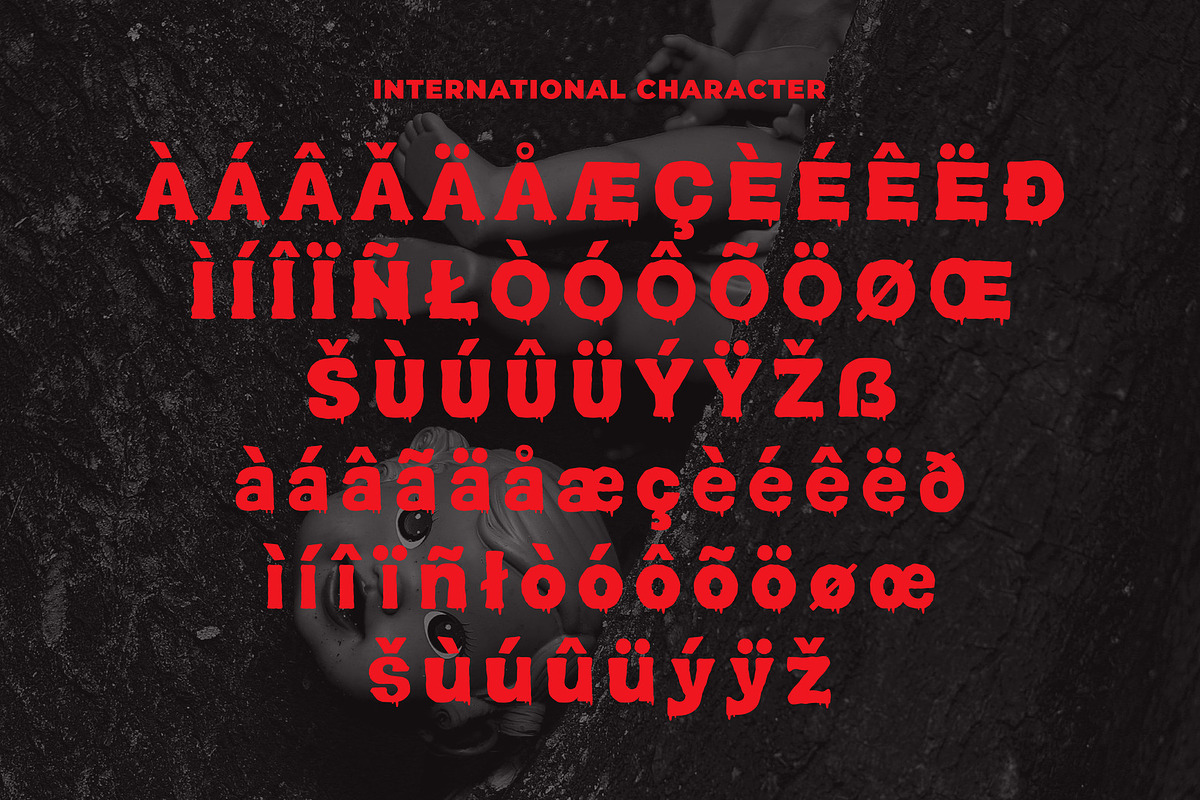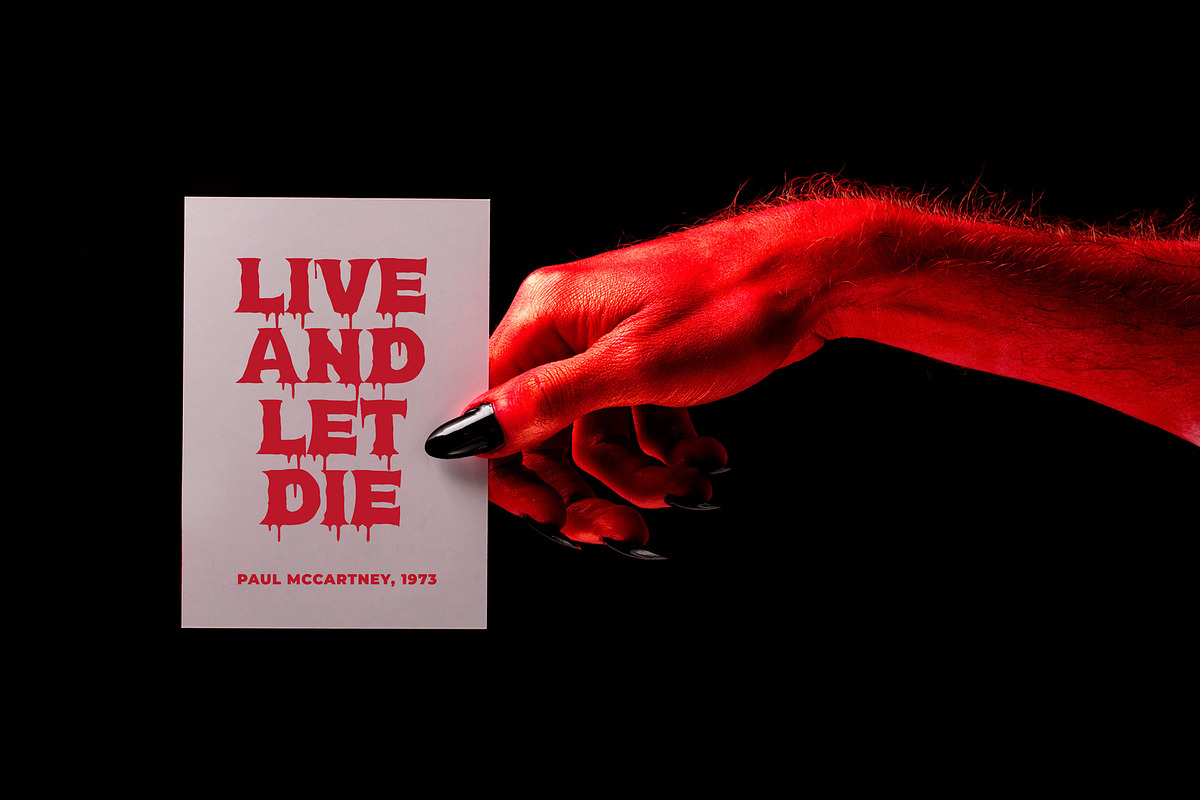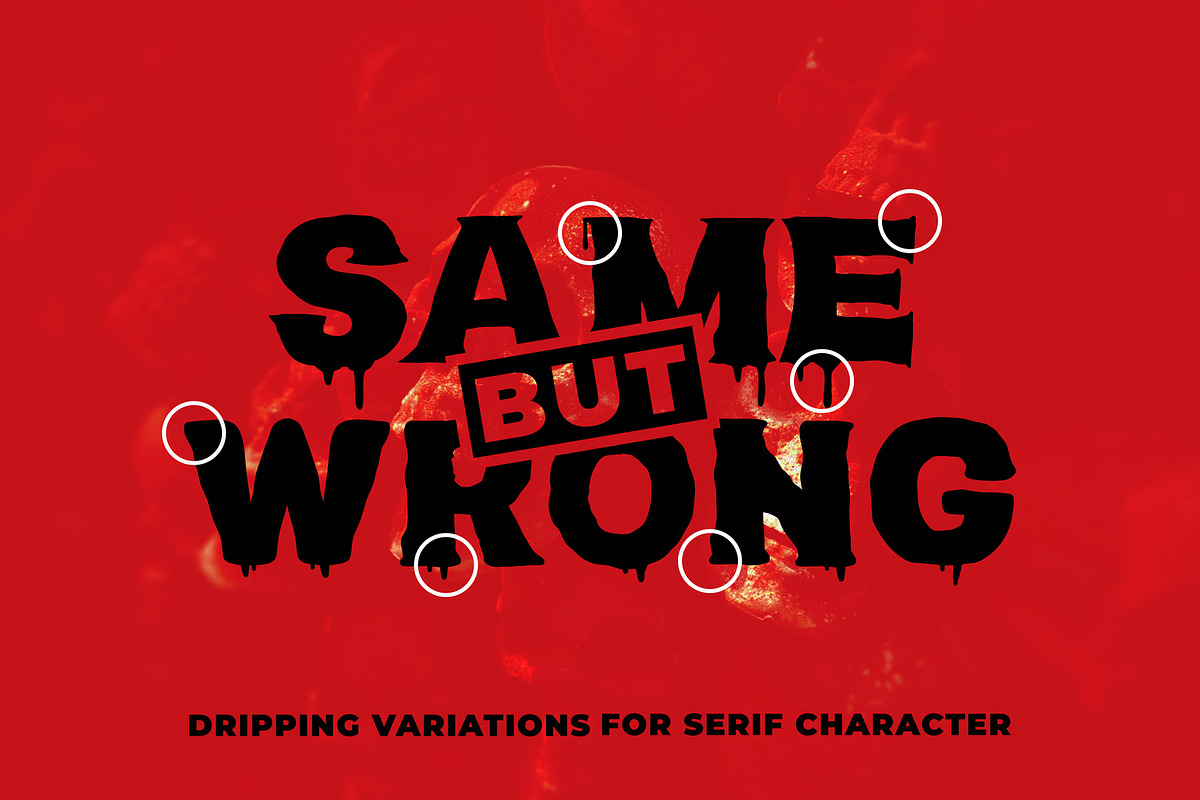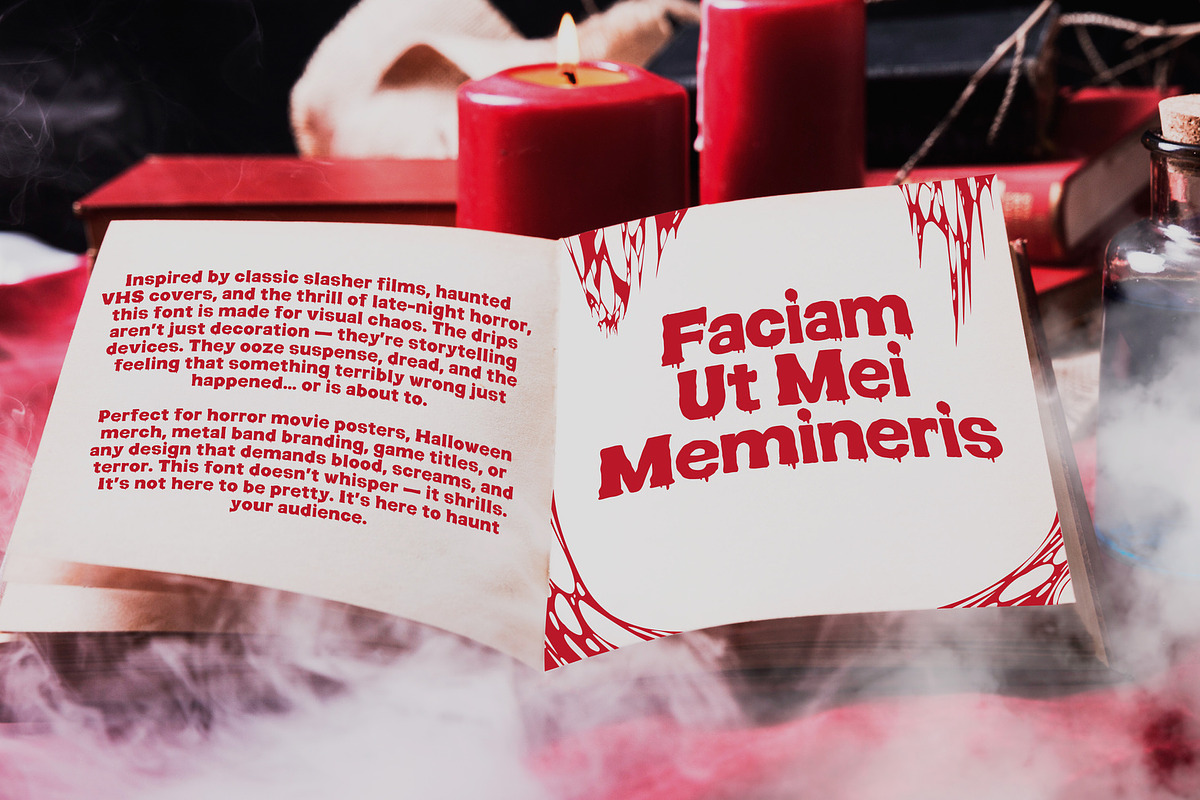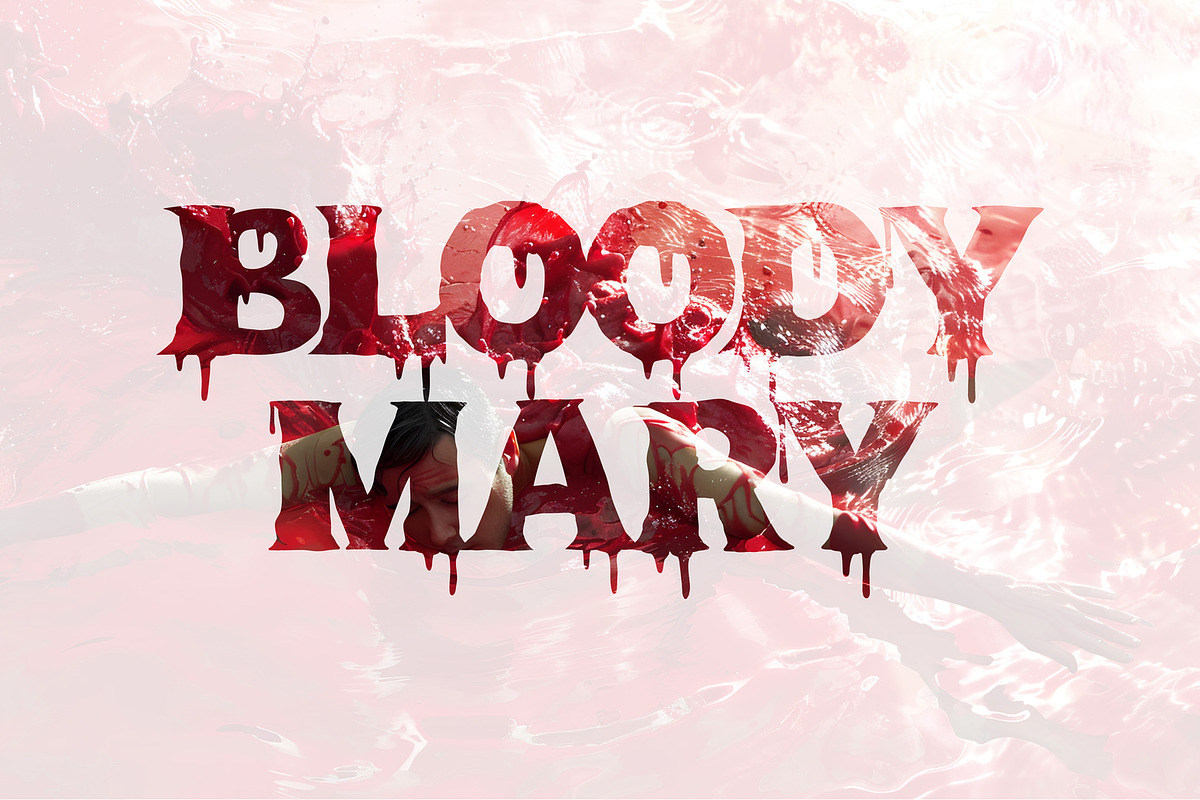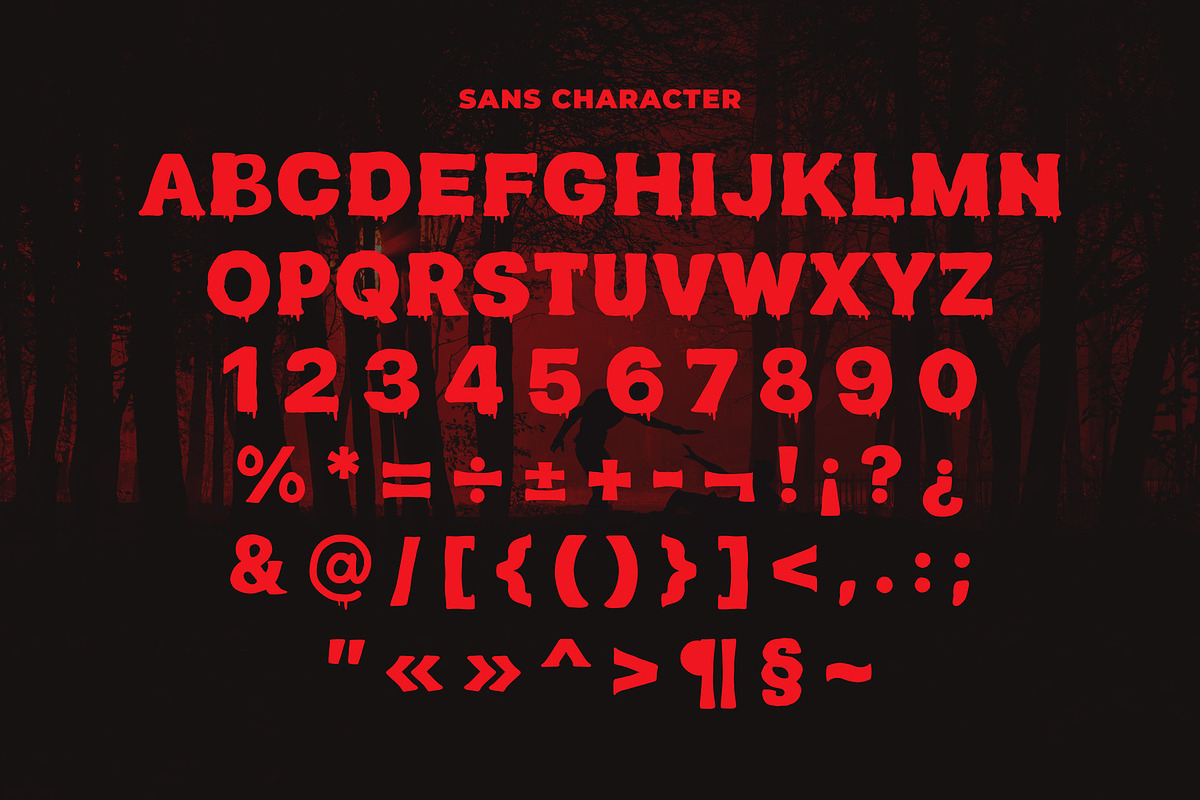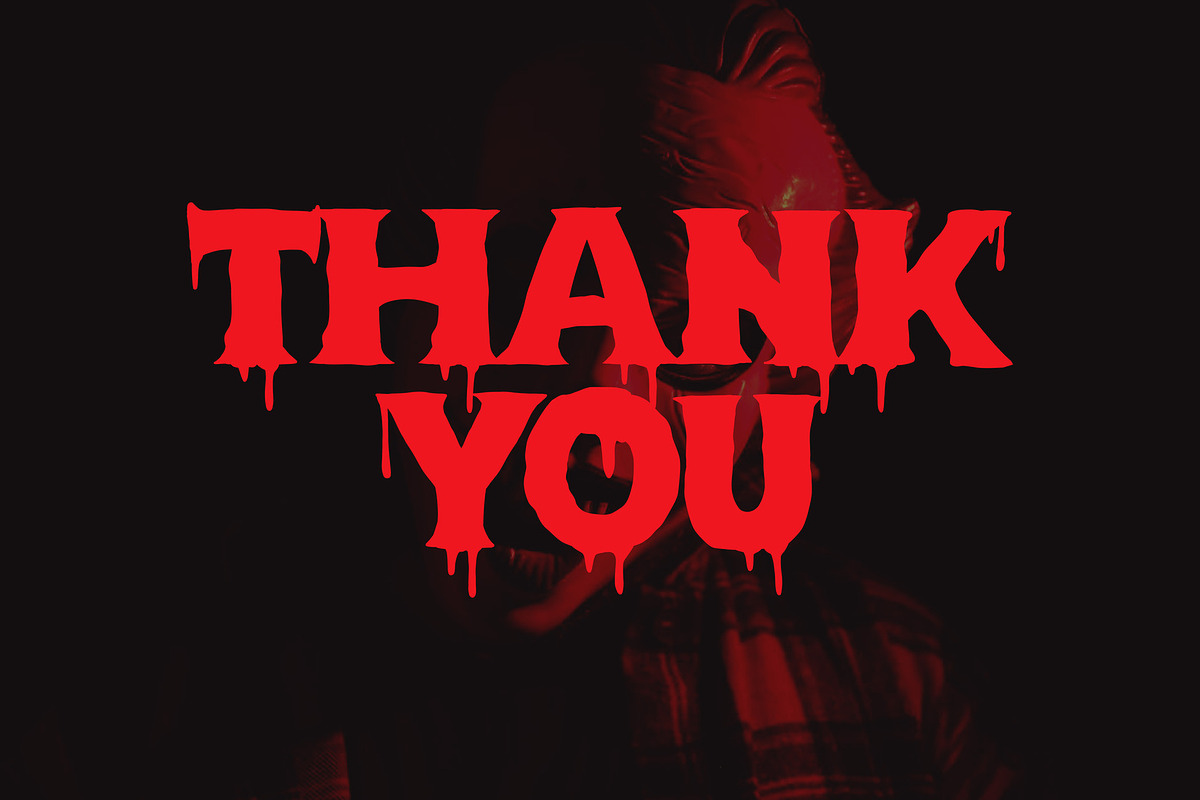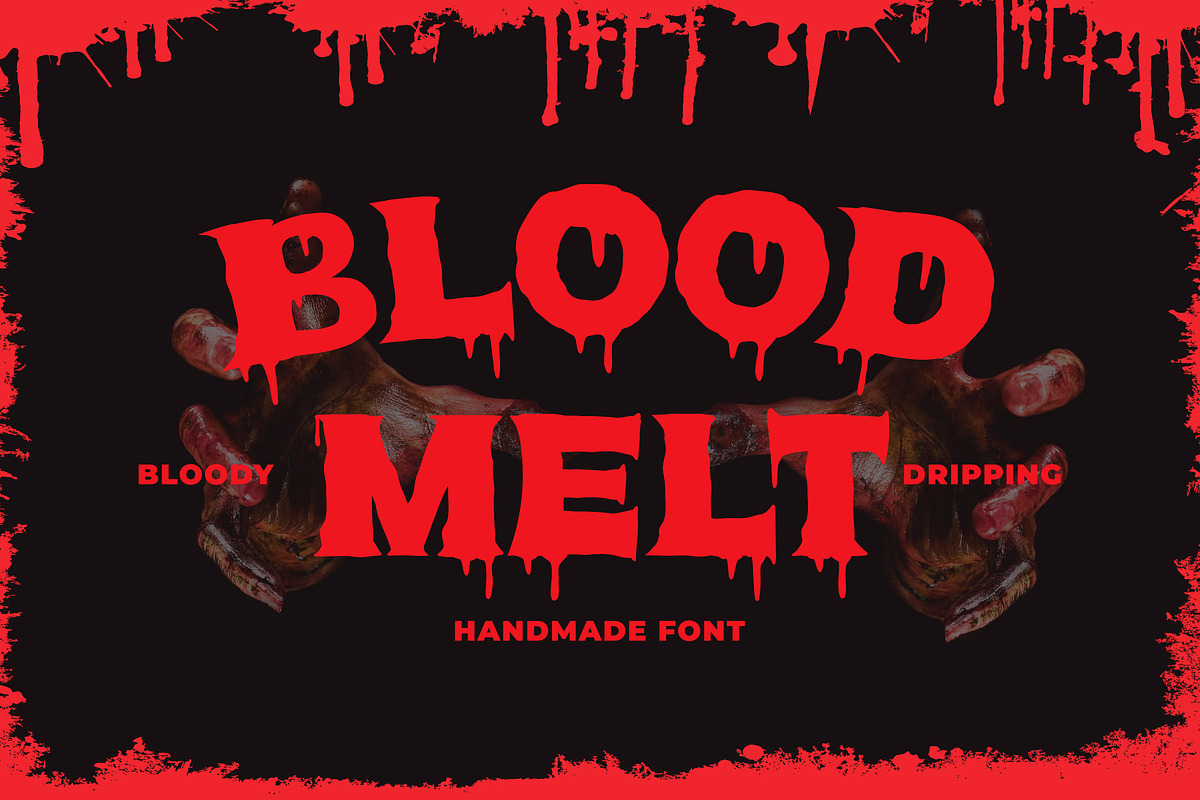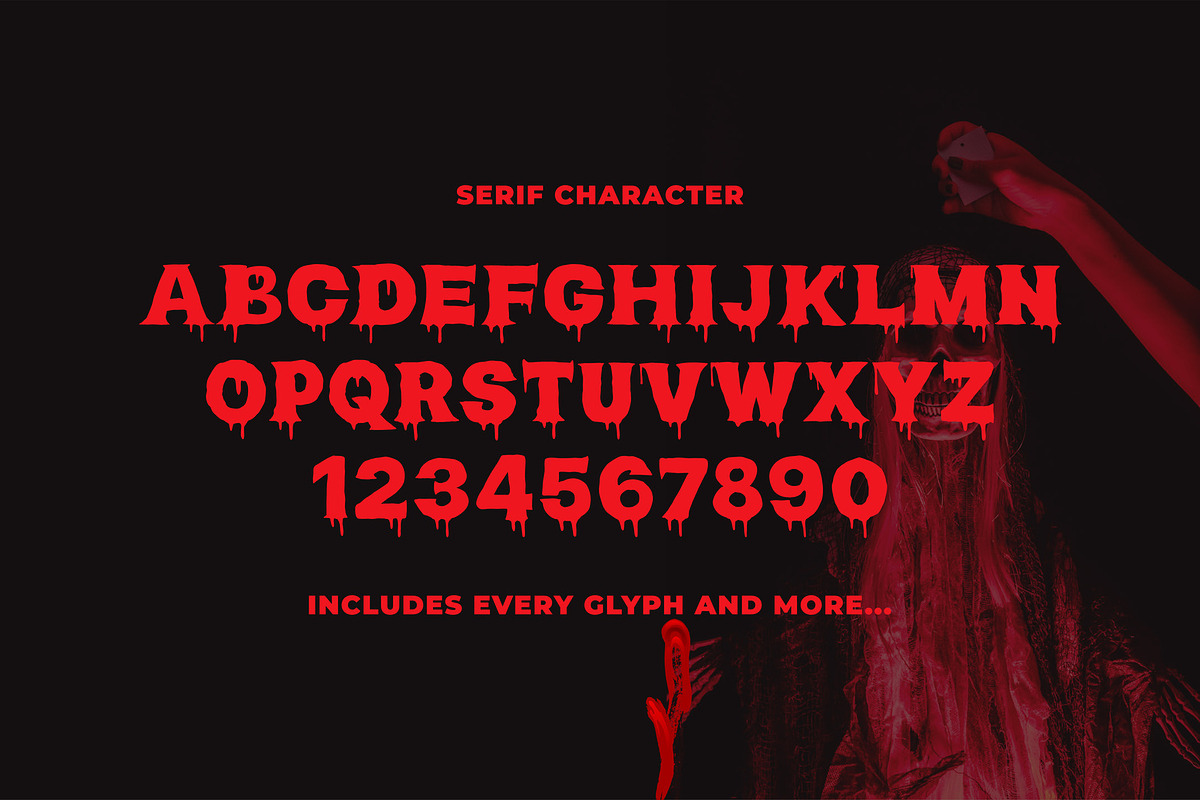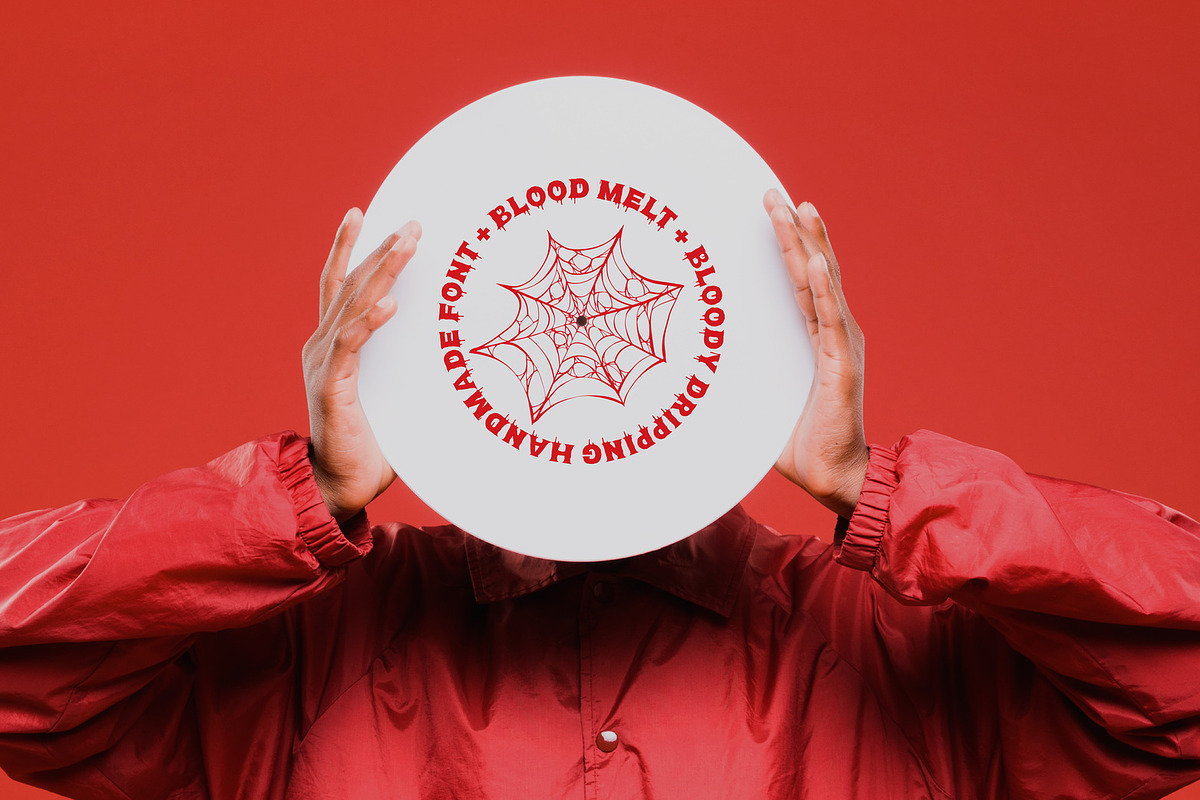
Blood Melt - Horror Hisplay
Blood Melt is a handcrafted horror display font designed to bring pure terror to your typography. Featuring sharp edges, irregular strokes, and realistic dripping blood details, this typeface captures the atmosphere of slasher movies, haunted attractions, zombie outbreaks, and supernatural nightmares.
Every character is carefully crafted to deliver a raw, unsettling aesthetic that instantly creates tension and fear. Whether you're designing horror movie posters, Halloween promotions, escape room branding, haunted house events, game titles, YouTube thumbnails, or spooky merchandise, Blood Melt provides an unforgettable visual impact.
Its bold silhouette ensures excellent readability while the dripping blood effect adds an authentic horror vibe, making it perfect for large headlines, logos, and promotional graphics. If your project demands dark, gruesome, and cinematic typography, Blood Melt is the ultimate choice.